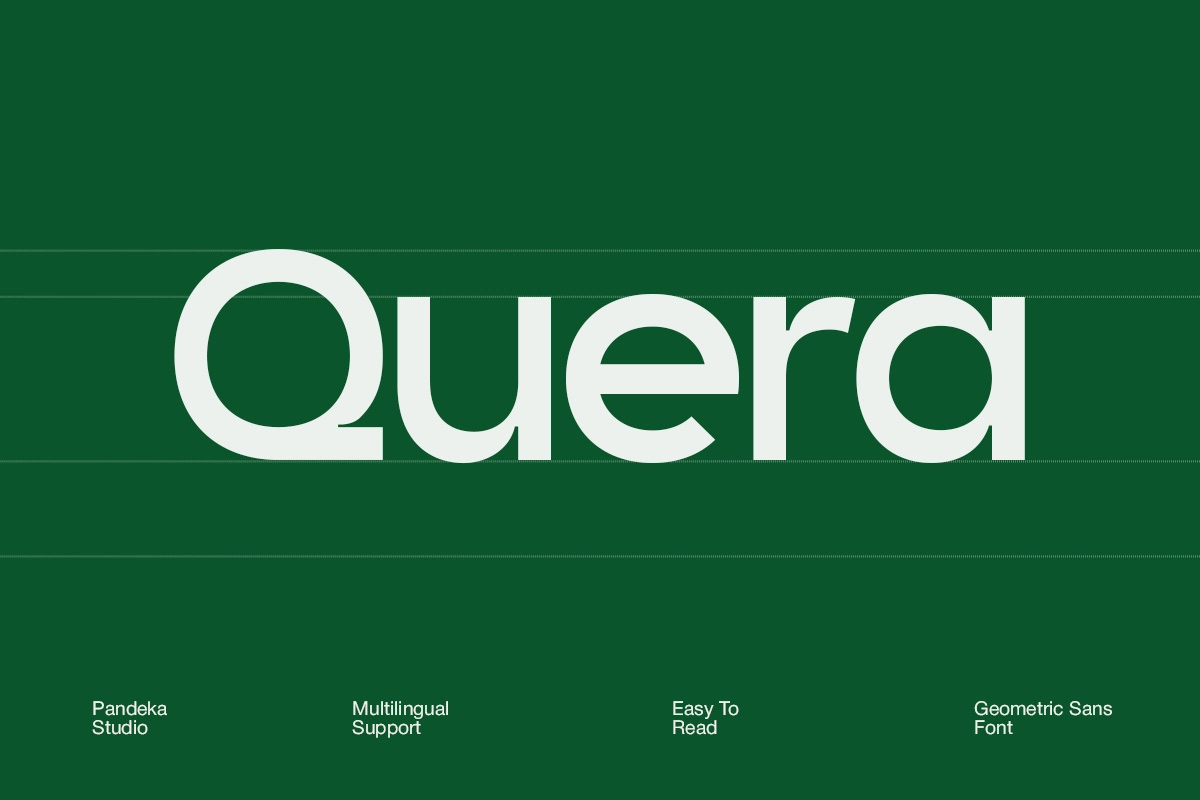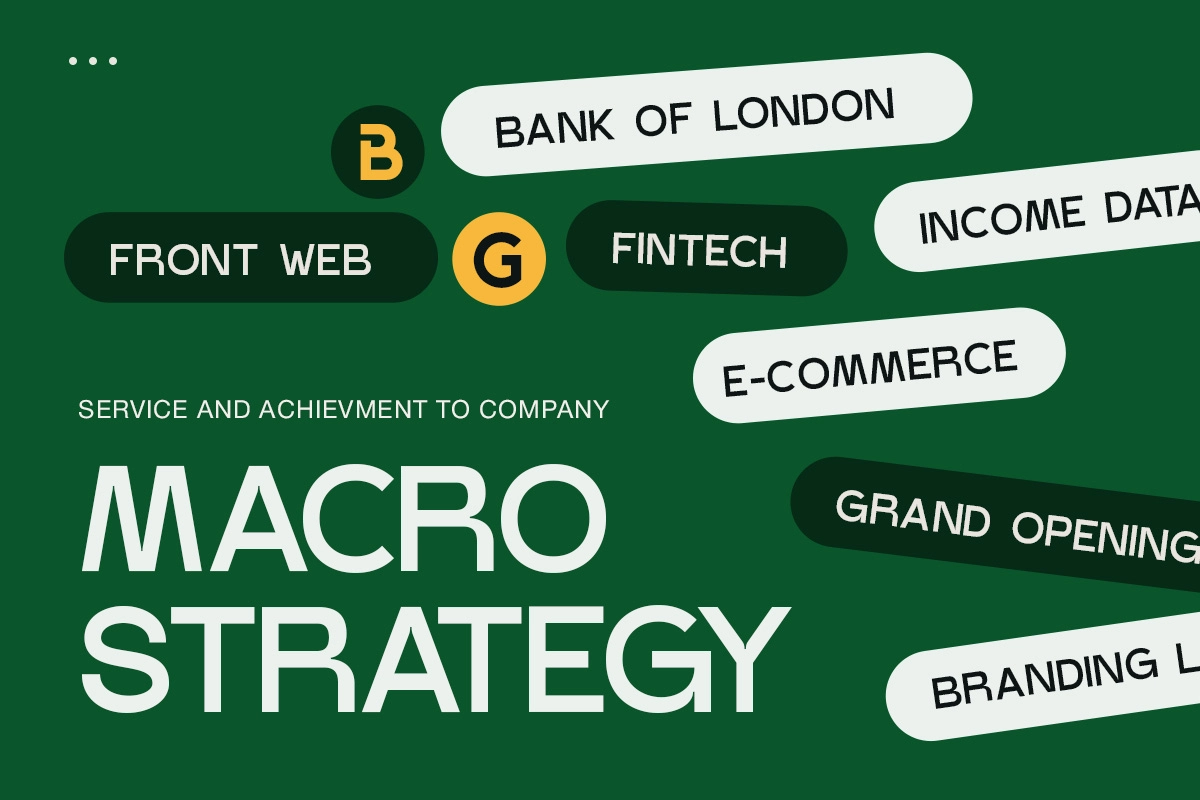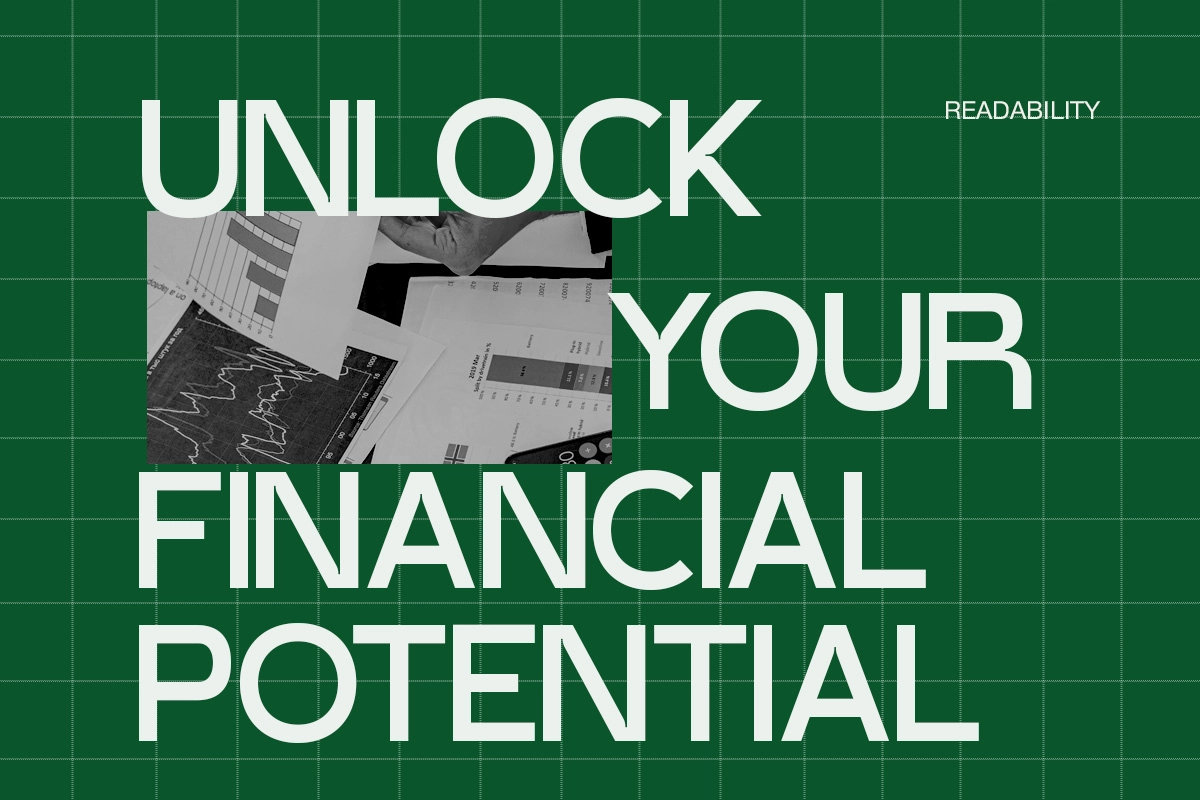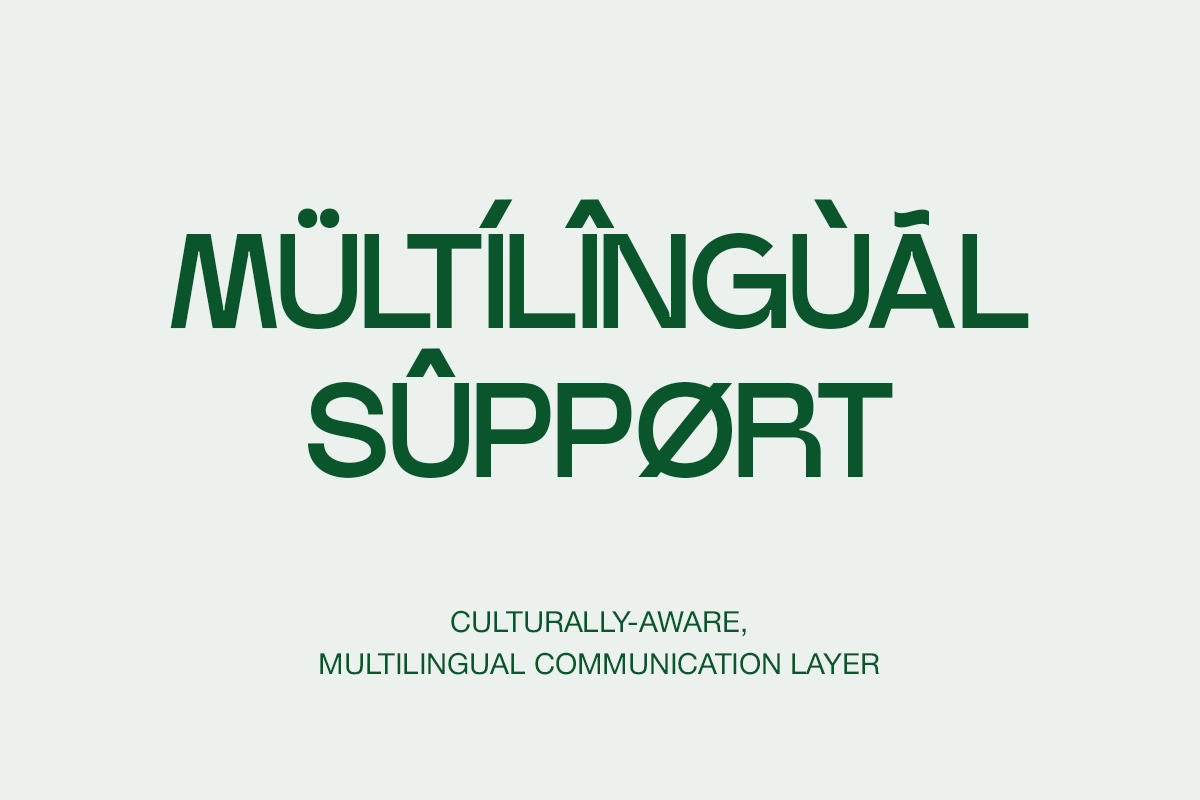
Quera - Geometric Sans Serif Font
Quera
Quera builds its geometric sans forms around circular counters and straight, confident terminals, aimed squarely at corporate and fintech branding. It could pass for an in-house grotesk commissioned by a bank's design team, not a generic font-marketplace download. The single Regular weight holds its shape from large headline sizes down to interface labels, so the letterforms read clean without losing their geometric snap.
Use it for fintech and banking branding, corporate presentations, editorial layouts, website and app interfaces, and business headline design.
- Multilingual support;